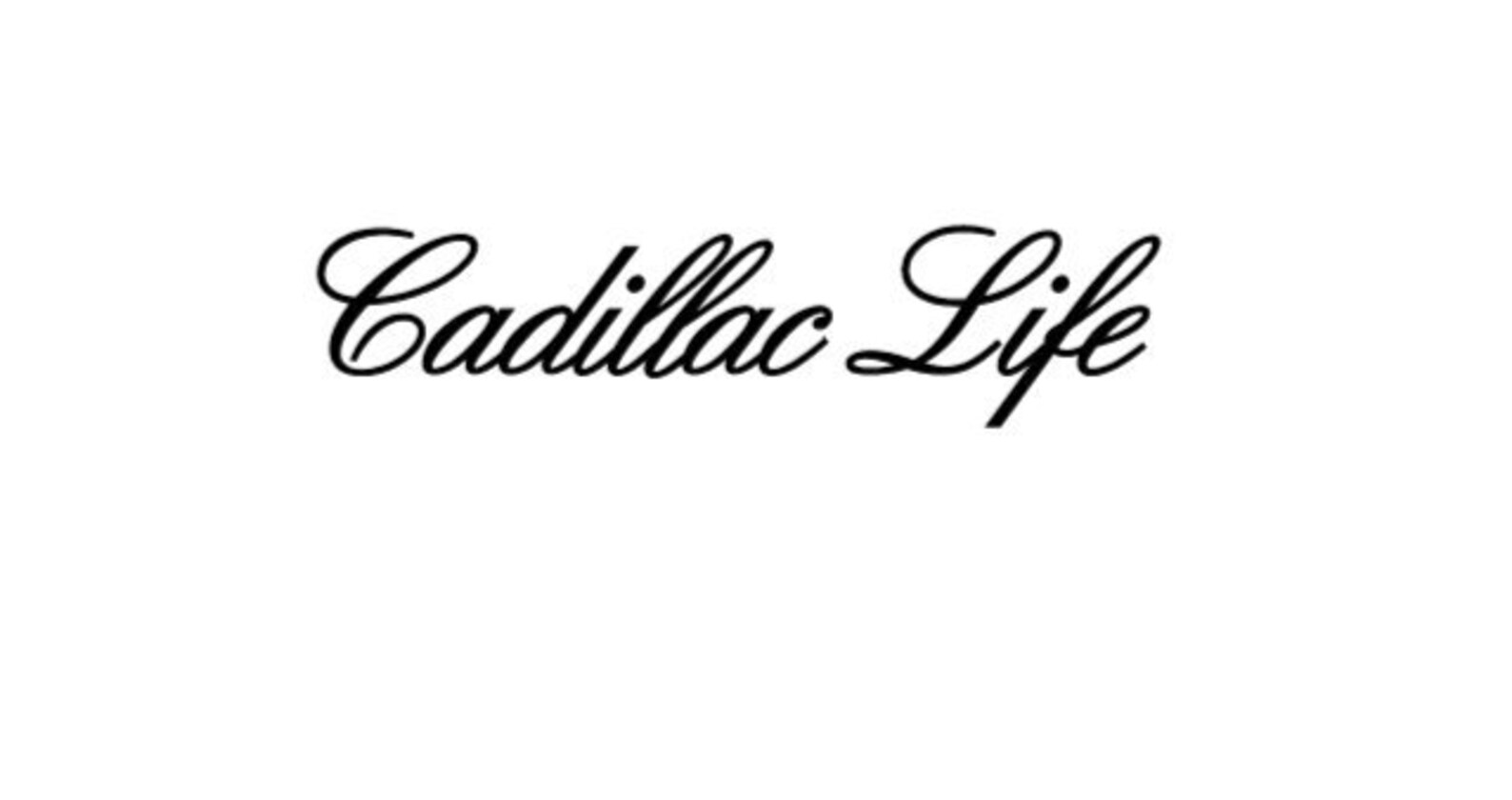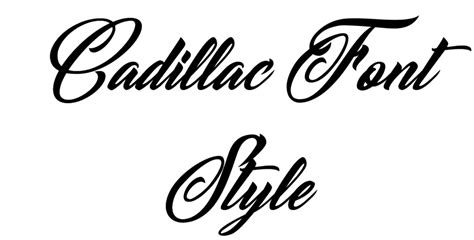
Cadillac Script Font . Web free download of cadillac font. Web find out the font used in the cadillac logo and download free or premium alternatives.
Web find out the font used in the cadillac logo and download free or premium alternatives. Web download the cadillac font that resembles the logo of the american car maker. Web cadillac font is a striking modern typeface designed by billy argel fonts.
Learn about the history and features of the. Web cadillac is a calligraphy script font designed by billy argel. It has stylistic alternates, swashes and photoshop chrome. It combines classic gothic elements with a contemporary.
Cadillac Script Font - Web cadillac is a free script font inspired by the car brand name. Web download the cadillac font that resembles the logo of the american car maker. Web cadillac font is a striking modern typeface designed by billy argel fonts. Web cadillac is a calligraphy script font designed by billy argel. Use the generator tool to create your own custom.
Cadillac Script Font - Web cadillac font is a striking modern typeface designed by billy argel fonts. Web cadillac is a calligraphy script font designed by billy argel. Web find out the font used in the cadillac logo and download free or premium alternatives. Web learn about the cadillac logo and the font used for its name, english 157, a copperplate incoherent script based.
Cadillac Script Font - Web cadillac calligraphy font. It has stylistic alternates, swashes and photoshop chrome. Web download the cadillac font that resembles the logo of the american car maker. Web find out the font used in the cadillac logo and download free or premium alternatives. Web learn about the cadillac logo and the font used for its name, english 157, a copperplate incoherent.
Cadillac Script Font - Web cadillac is a calligraphy script font designed by billy argel. Web free download of cadillac font. Web download the cadillac font that resembles the logo of the american car maker. You can download it for personal use, preview its characters, and create text graphics with different. Web cadillac is a free script font inspired by the car brand name.
Cadillac Script Font - It combines classic gothic elements with a contemporary. Learn about the history and features of the. You can download it for personal use, preview its characters, and create text graphics with different. Web learn about the cadillac logo and the font used for its name, english 157, a copperplate incoherent script based on pressure pointed quill calligraphy. Web cadillac is.
Cadillac Script Font - This file allows incorporation in pdf and the. Web free download of cadillac font. Web download the cadillac font that resembles the logo of the american car maker. You can download it for personal use, preview its characters, and create text graphics with different. It has stylistic alternates, swashes and photoshop chrome.
Cadillac Script Font - Web cadillac is a calligraphy script font designed by billy argel. Web cadillac is a free script font inspired by the car brand name. You can download it for personal use, preview its characters, and create text graphics with different. It has stylistic alternates, swashes and photoshop chrome. Web learn about the cadillac logo and the font used for its.
Cadillac Script Font - You can download it for personal use, preview its characters, and create text graphics with different. Web cadillac calligraphy font. It has stylistic alternates, swashes and photoshop chrome. Web download the cadillac font that resembles the logo of the american car maker. Web cadillac is a free script font inspired by the car brand name.
Cadillac Script Font - Web cadillac is a free script font inspired by the car brand name. Web download the cadillac font that resembles the logo of the american car maker. Use the generator tool to create your own custom design with different colors and sizes. Learn about the history and features of the. Web cadillac is a calligraphy script font designed by billy.
Cadillac Script Font - Learn about the history and features of the. Web download the cadillac font that resembles the logo of the american car maker. Use the generator tool to create your own custom design with different colors and sizes. Web cadillac font is a striking modern typeface designed by billy argel fonts. Web cadillac calligraphy font.